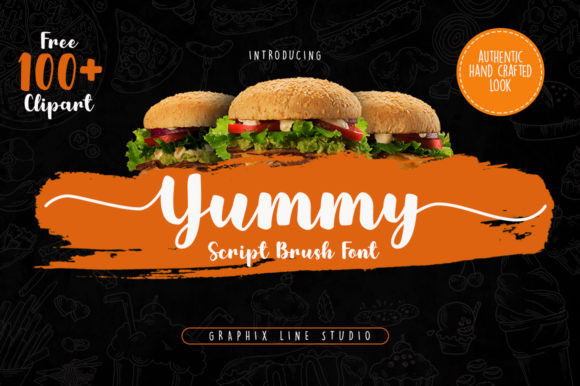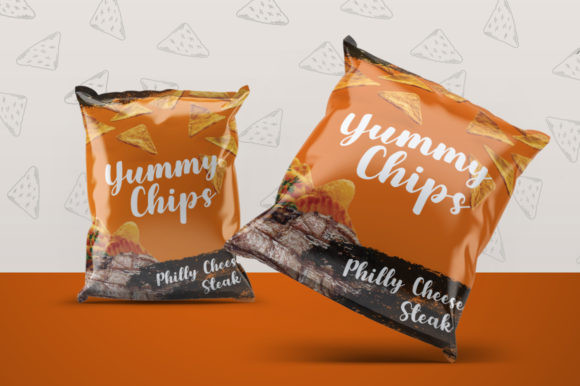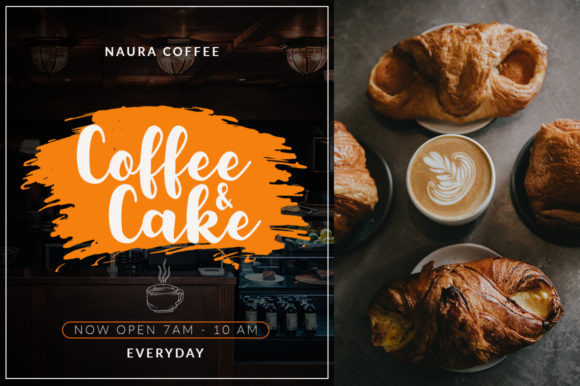
Yummy Font
Yummy is a sweet, soft hand-lettered script font. This is a beautiful combination of timeless elegance and authentic calligraphy. It features an incredibly classic style, while still keeping a friendly feel.